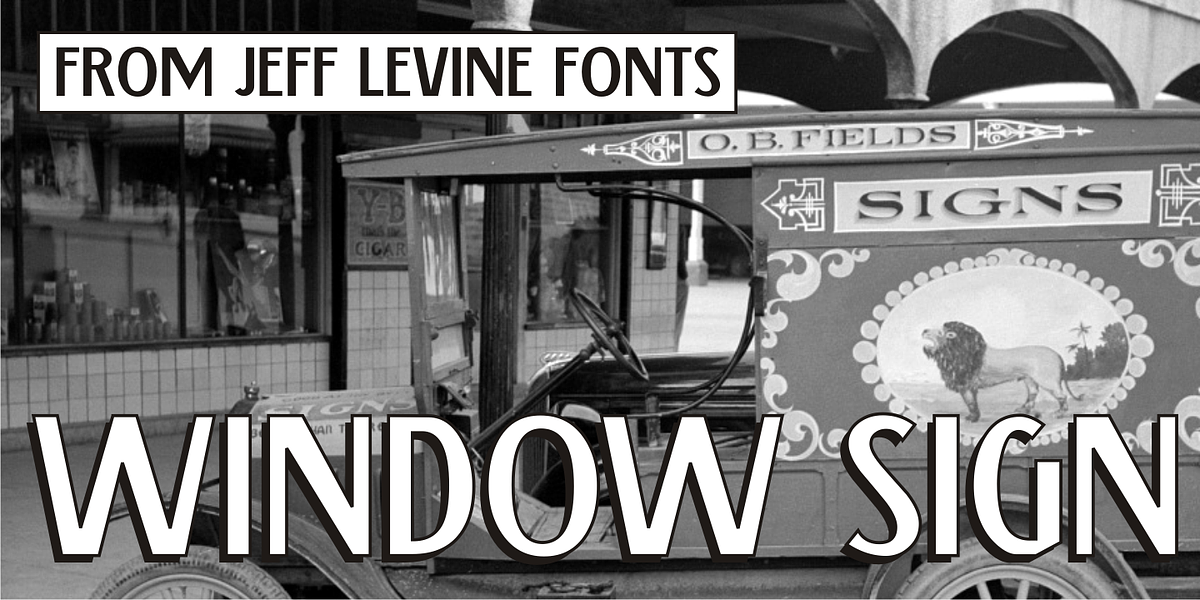
Window Sign JNL
Window Sign JNL is a solidified re-working of <a href="/fonts/jeff-levine/sign-stencil-jnl/">Sign Stencil JNL</a> which was originally modeled from some vintage lettering stencils that were part of a store sign making kit.